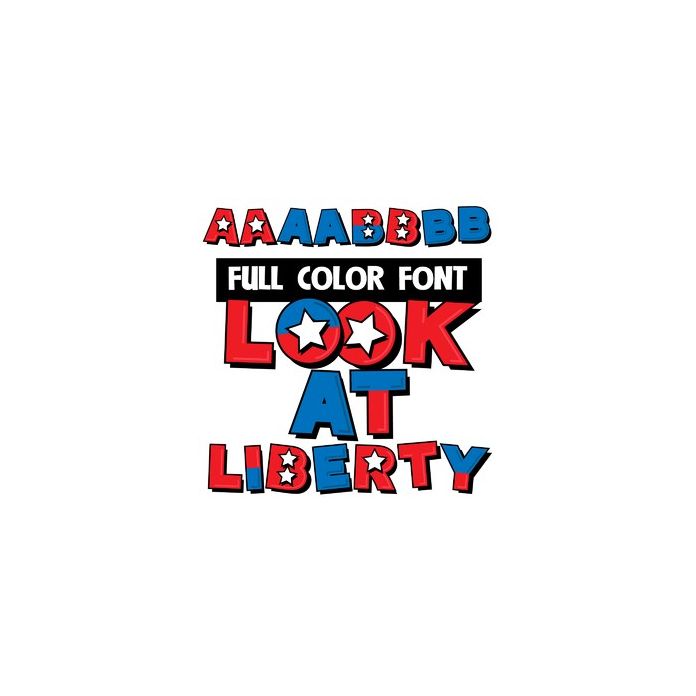
This full-color font features red, white, and blue, american-style lettering. There is a full alternate upper and lowercase in alternate colors to help you stay creative. This font works best for titles, displays, posters and more. Please note color fonts will show as black in non compatible programs. This font type is compatible with Silhouette Studio.